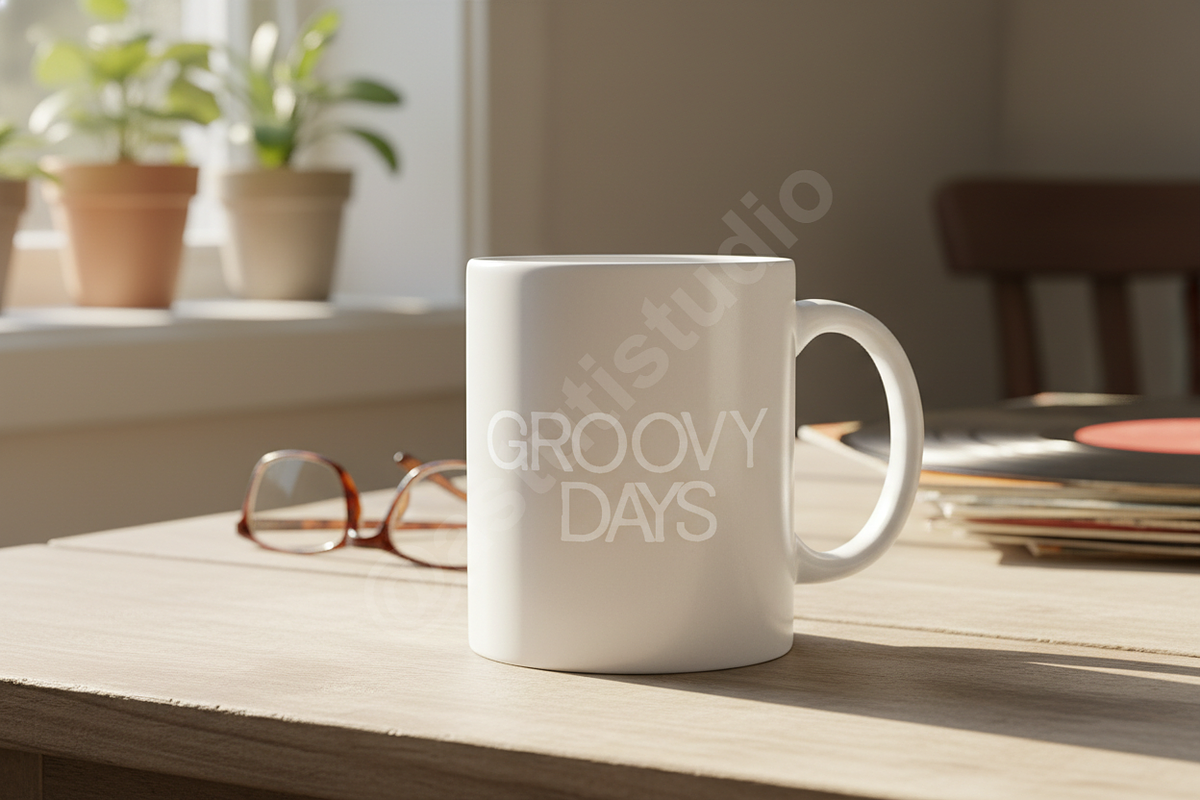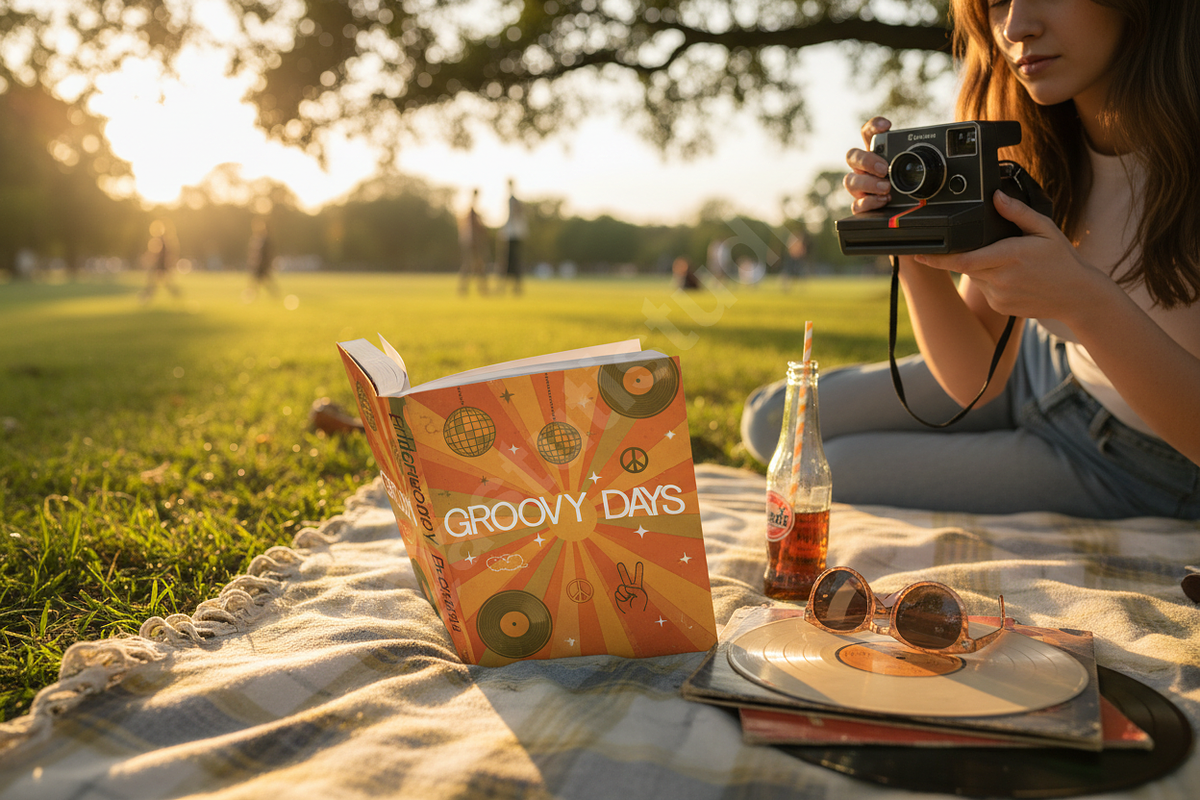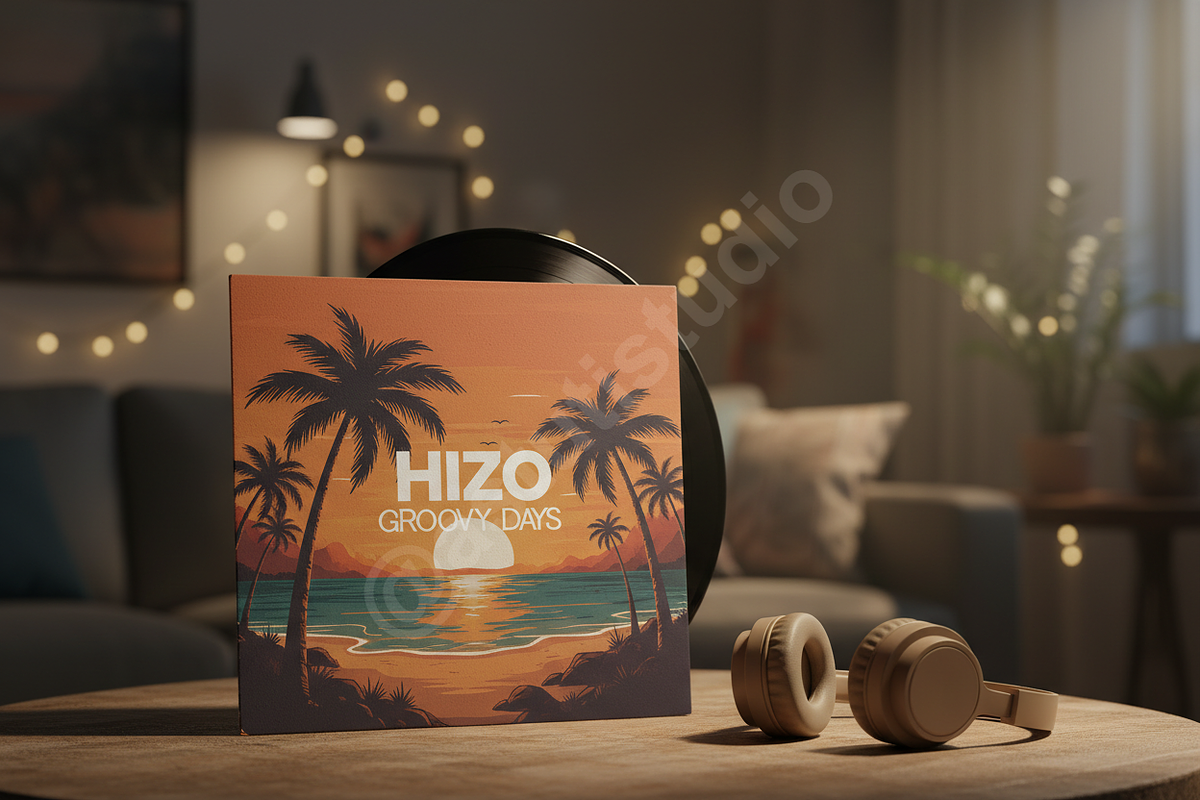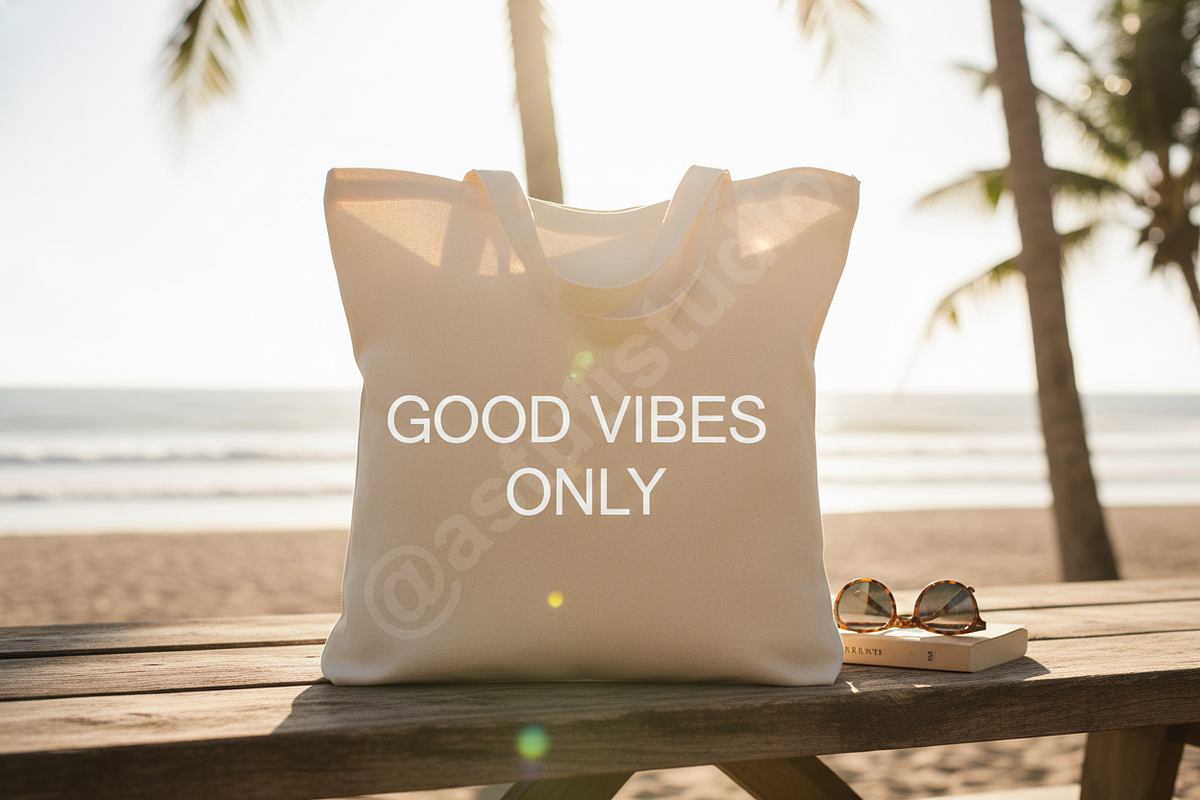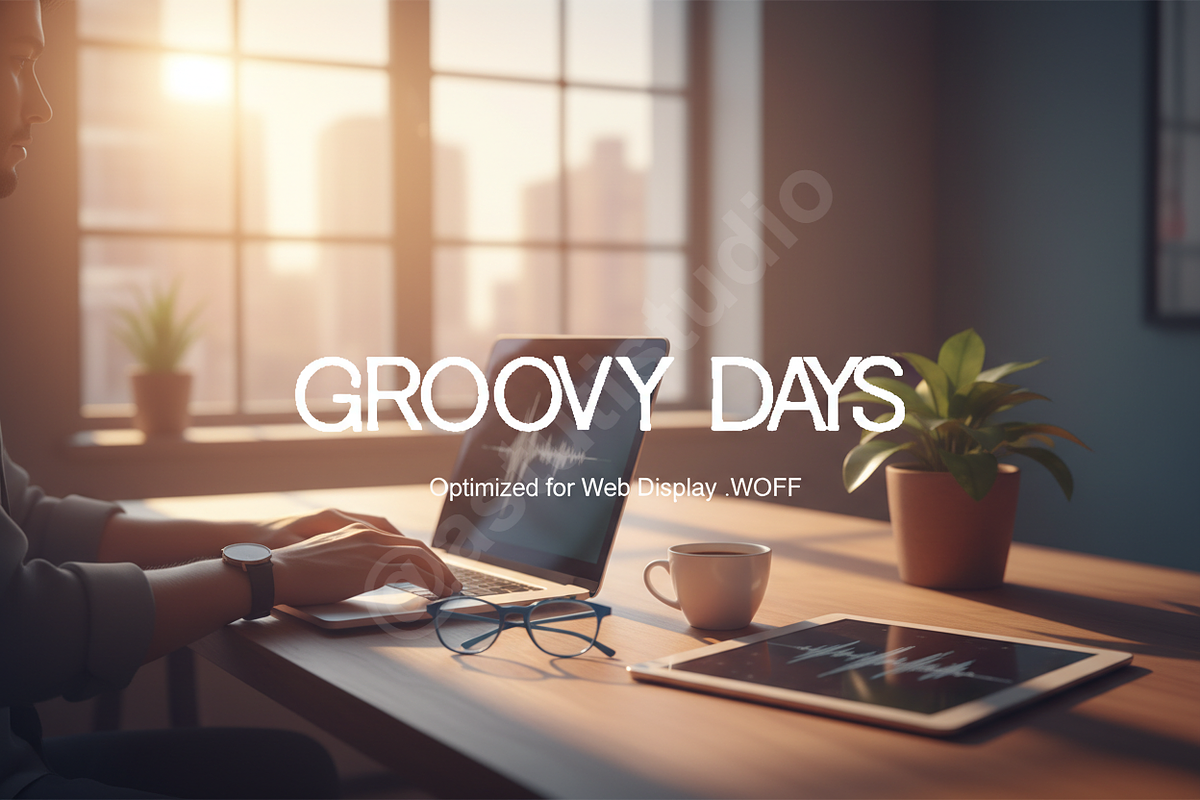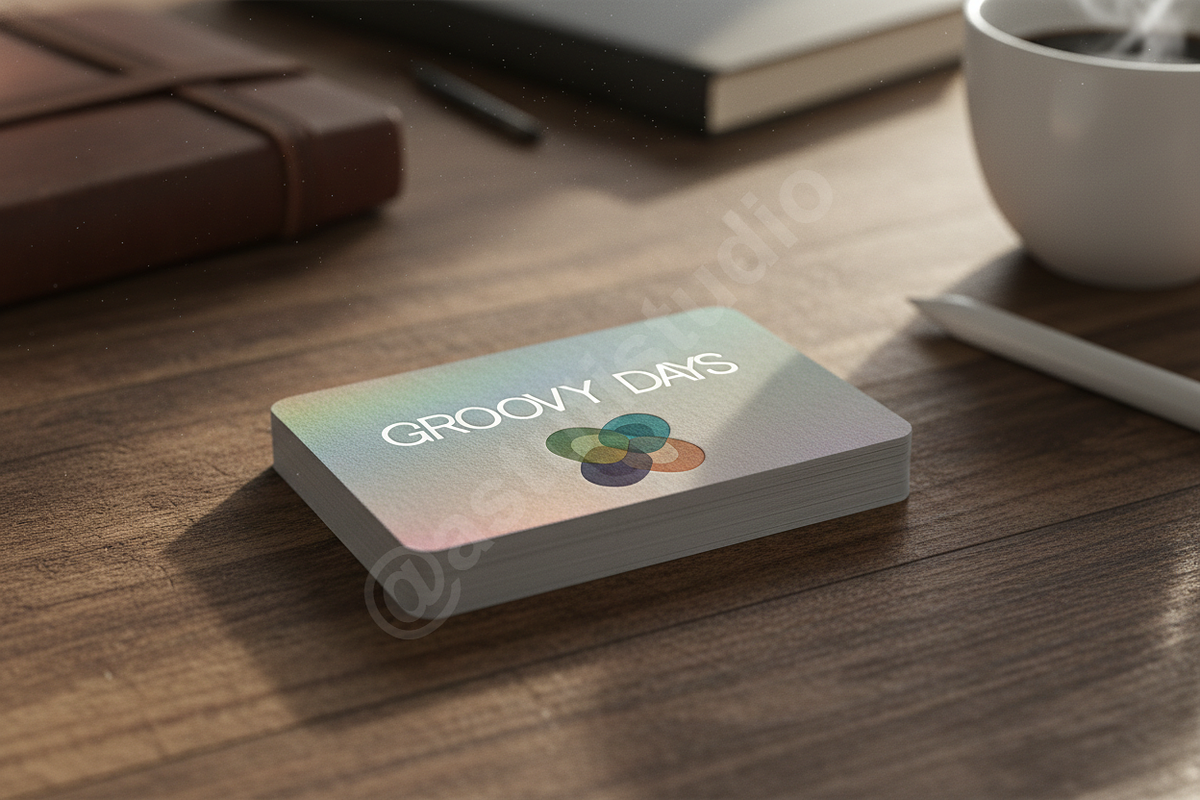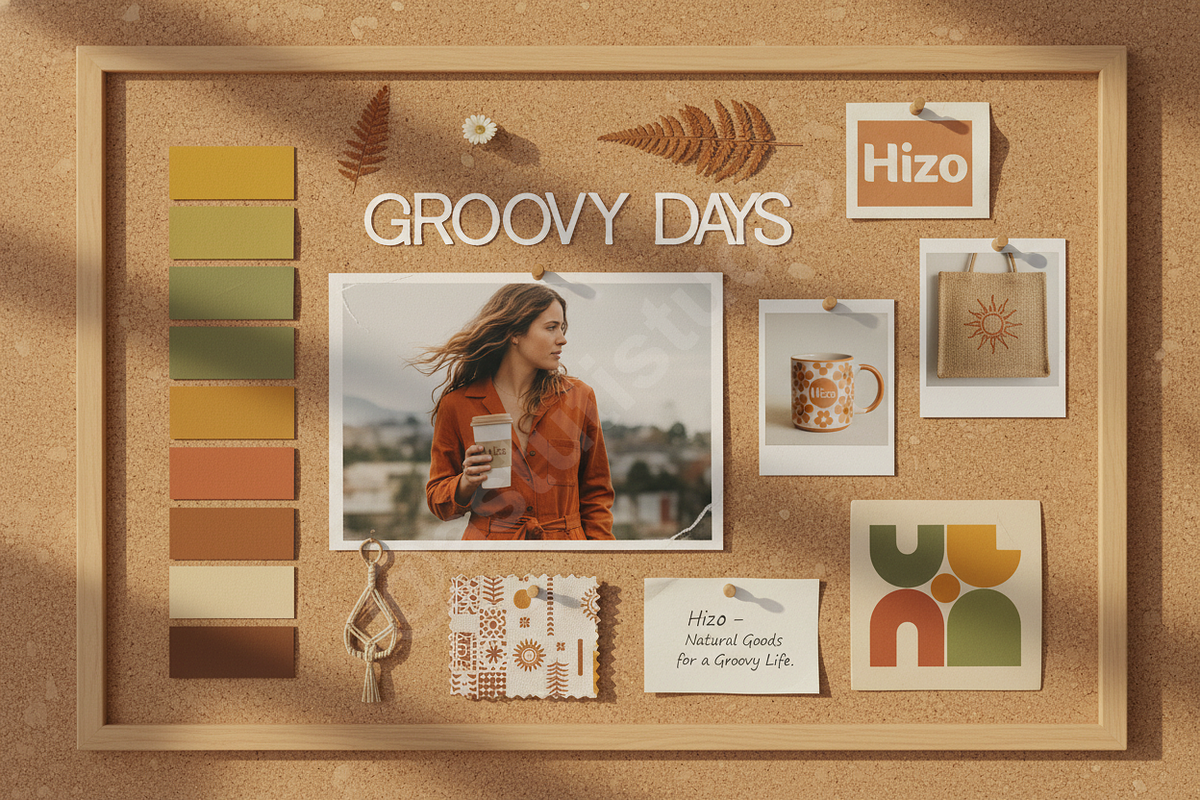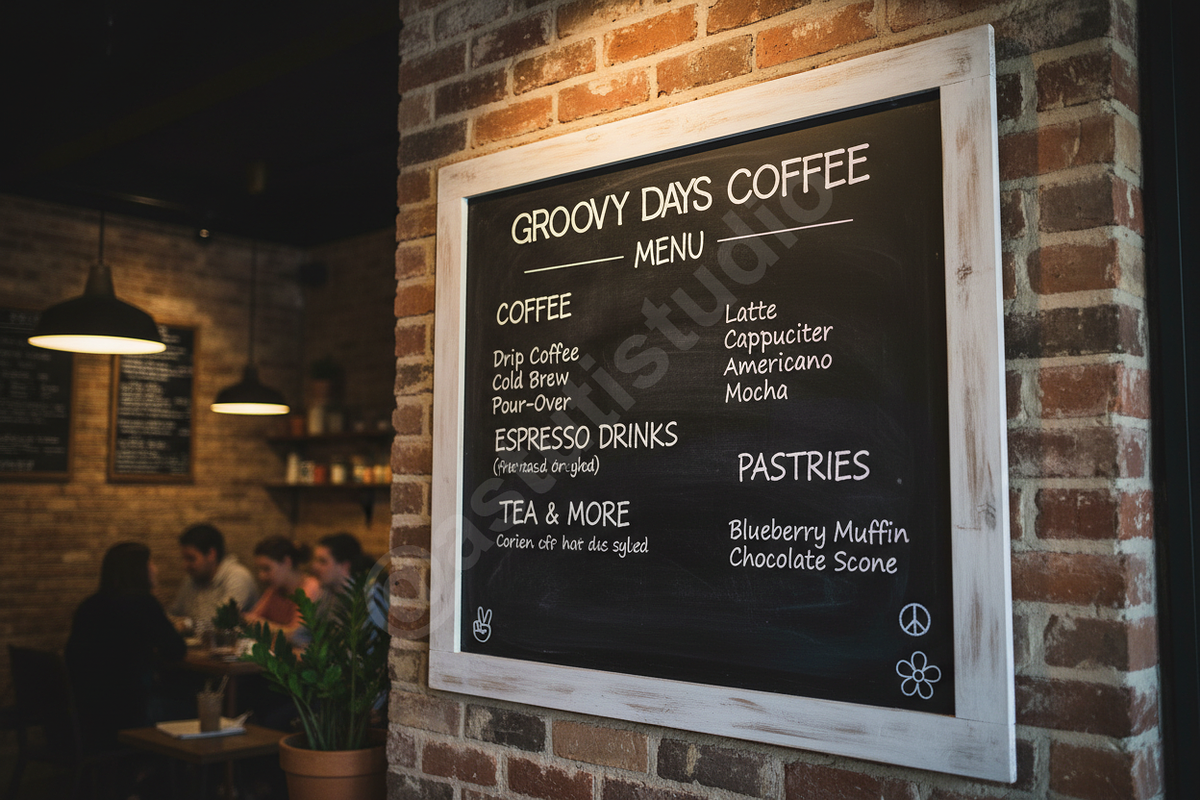
Hizo | Elegant Sans-Serif Typeface
Hizo is a refined, minimalist sans-serif typeface designed for the discerning creator. Inspired by the quiet luxury of modern editorial design, this font brings a touch of effortless sophistication to any project. Its clean geometry and balanced proportions make it an essential tool for high-end branding, fashion layouts, and curated social media content.
- Distinctive, elegant letterforms
- Clean and minimalist aesthetic
- Full uppercase and lowercase character set
- Extensive multilingual support
- Sophisticated ligatures and alternates
- Optimized for both print and digital displays
- Luxury brand identity and logo design
- High-fashion editorial and magazine layouts
- Premium packaging and stationery
- Minimalist social media graphics
- Sophisticated web typography